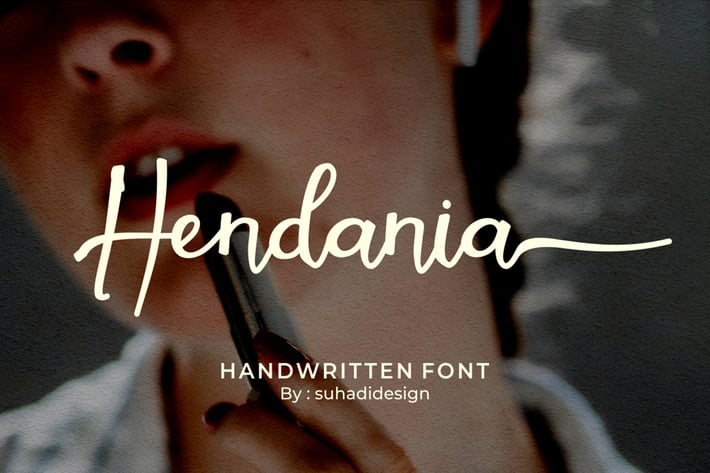
Hendania Handwritten Font
Hendania handwritten font
According to the market demand, the font is more inclined to the signature font, so I decided to create a signature font that is in your view. The Hendania font is a simple and very popular font, comes with a modern style hoping to be accepted by the market. We keep this font looking elegant, classy, easy to read, stylish, attractive and easy to use.
Hendania Font is a great choice for cosmetic brands, branding, watermarks on photography, signature or signature logo designs, business brand names, quotes, album covers, beauty, business cards, packaging and many other design projects. From business cards to photo watermarks, The Hendania is here to take your work to the next level.
• Uppercase and lowercase
• Numeral and punctuation
• Multilingual support
• Lowercase letter swash